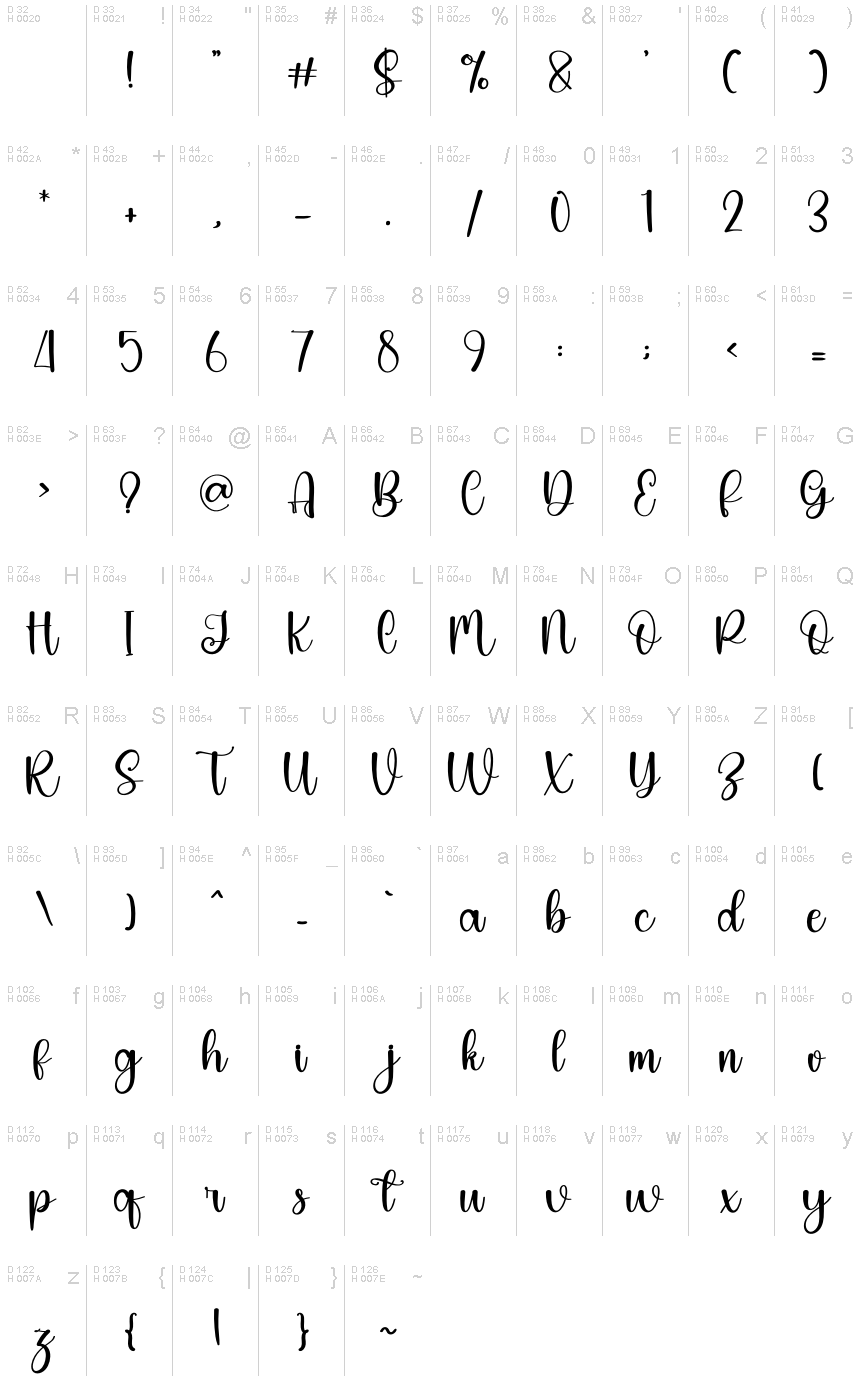
Beachlife
Beachlife font is Inermedia Studio beautiful creation that displays a graceful handwritten style. Elegant, playful, and flowing, the signature typeface has an informal touch that can be pleasant in various personal or commercial projects. Its charming look and different possible combinations are surely worth checking out closely with the free font version before you decide to up your game with a premium download!
Use it for display purposes in posters, packaging designs, branding materials, logo design, website headings or content, advertising publications and other interesting ideas.